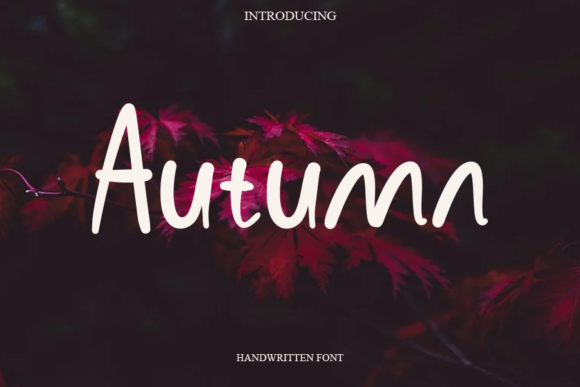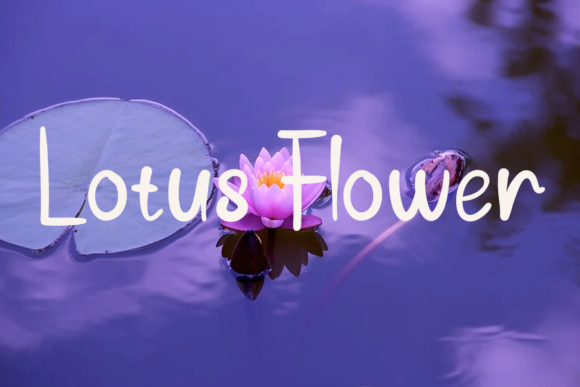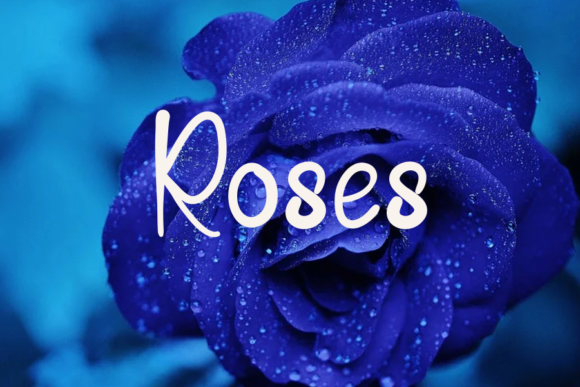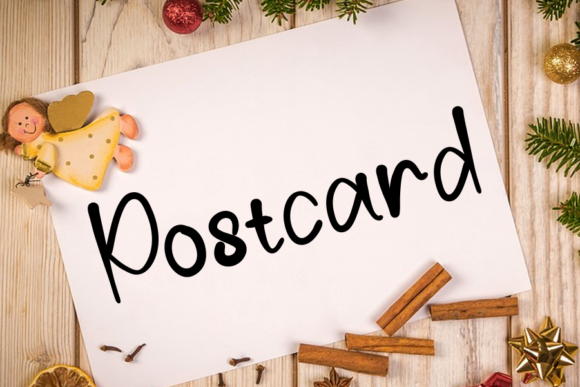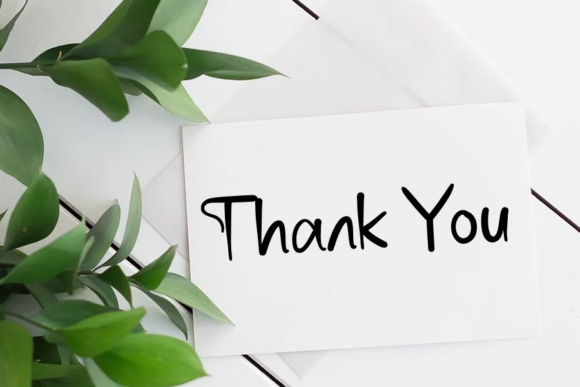
Autumn Font
About Autumn Font
Autumn is a sweet and friendly handwritten font. Its natural and unique style makes it incredibly fitting to a large pool of designs. The only limit is your imagination!